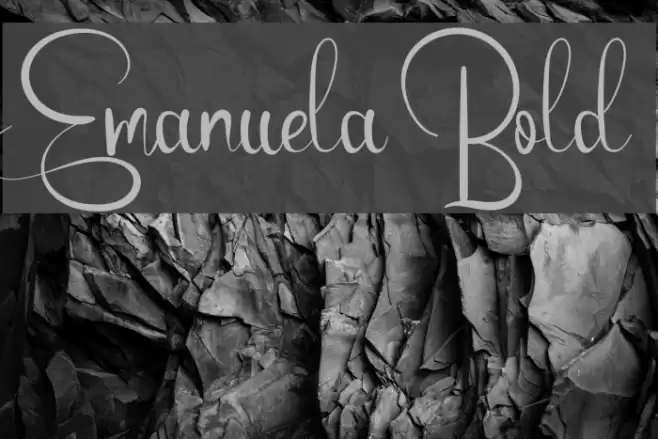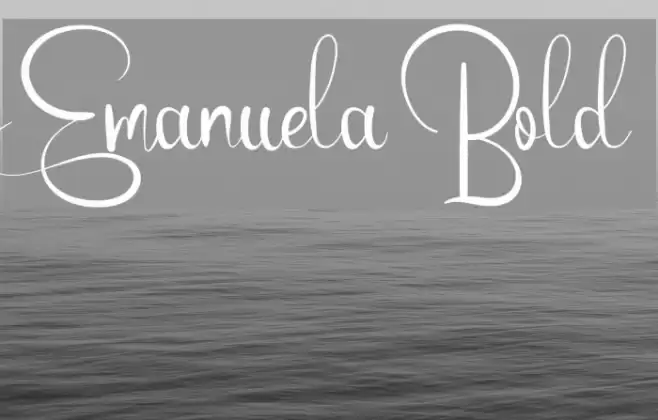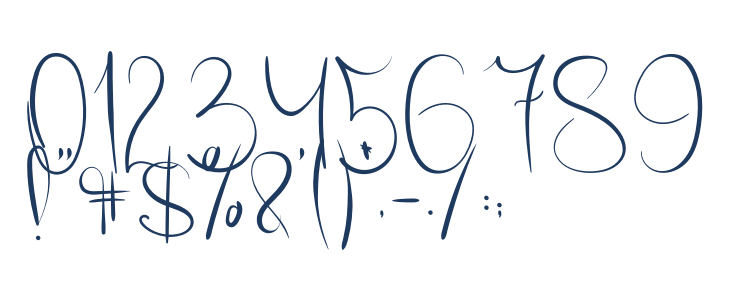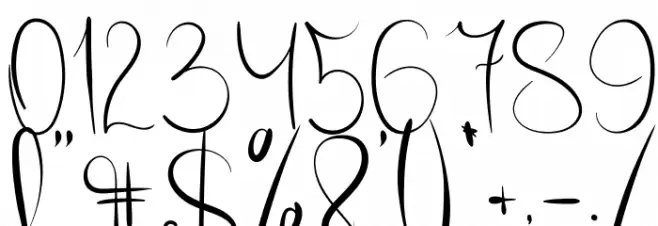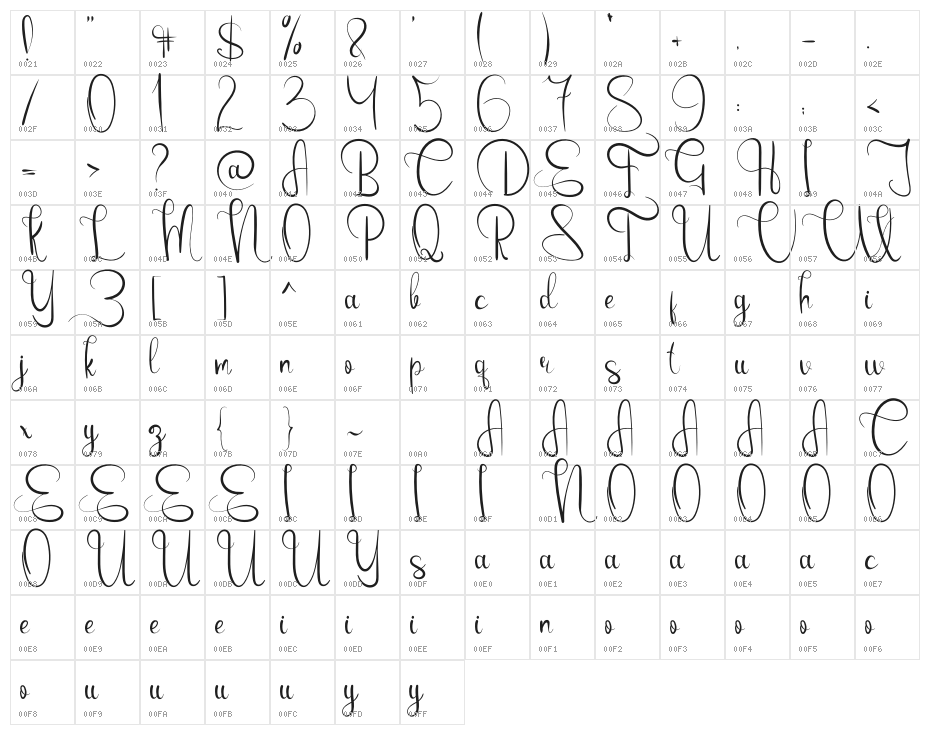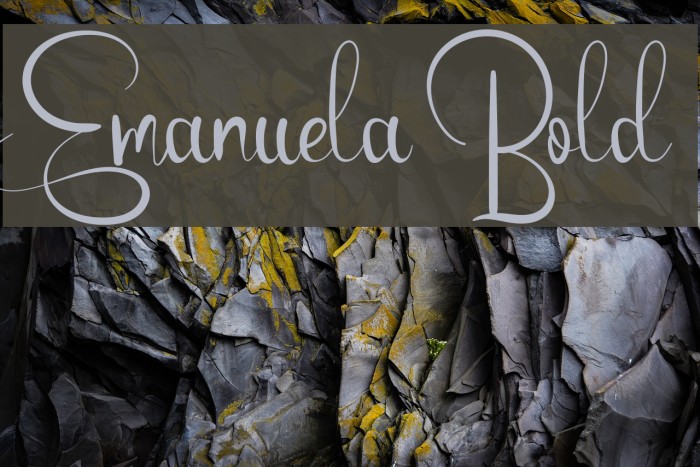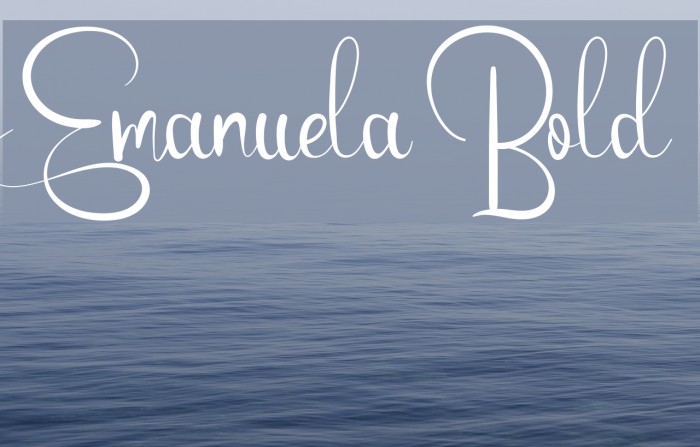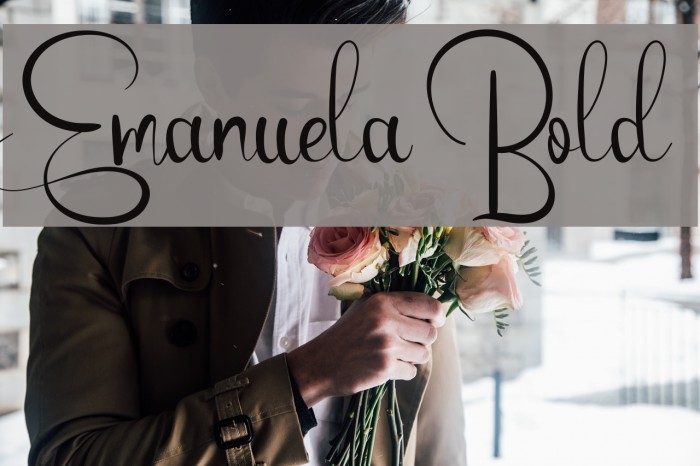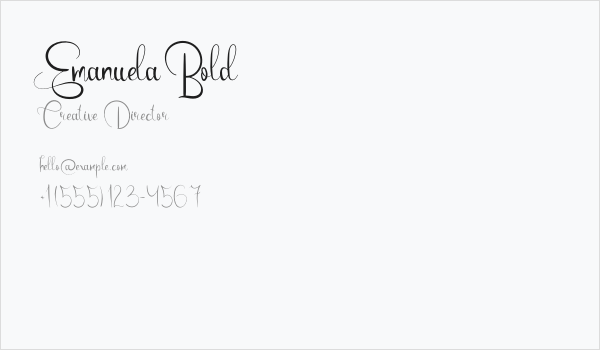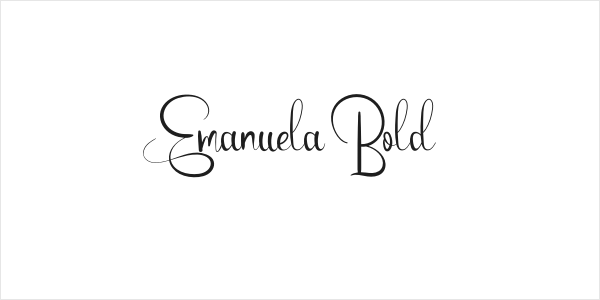
Emanuela Bold Font
Emanuela Bold Description
This font features an elegant and flowing script style, characterized by its intricate loops and swirls that give it a sophisticated and artistic appearance. The uppercase letters are particularly ornate, with extended strokes and decorative elements that add a touch of flair. The lowercase letters maintain a consistent style, with smooth curves and a graceful flow. The numerals are equally stylish, incorporating the same looping design. Special characters are designed with attention to detail, complementing the overall aesthetic. This font is ideal for projects that require a touch of elegance and creativity.
An elegant and flowing script font with intricate loops and swirls from Uncategorized fonts.
- Proposed Projects: Ideal for wedding invitations, elegant branding, artistic projects, and decorative headings.
- Use Case: Logos, Headlines, Invitations